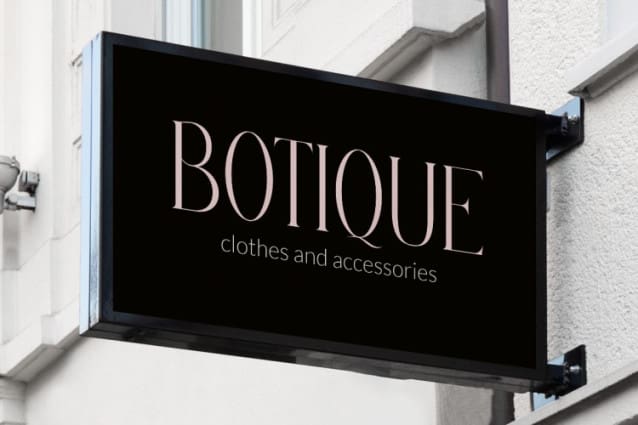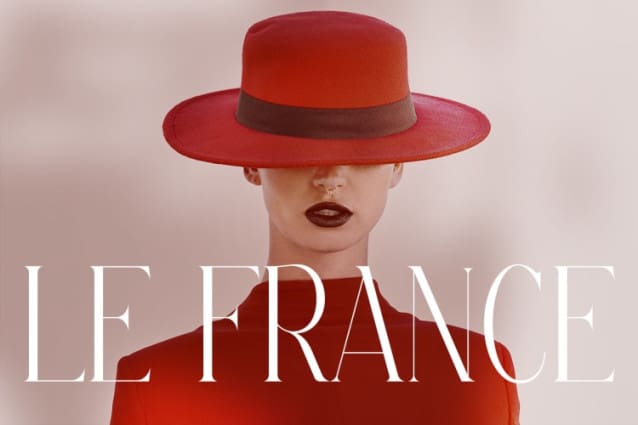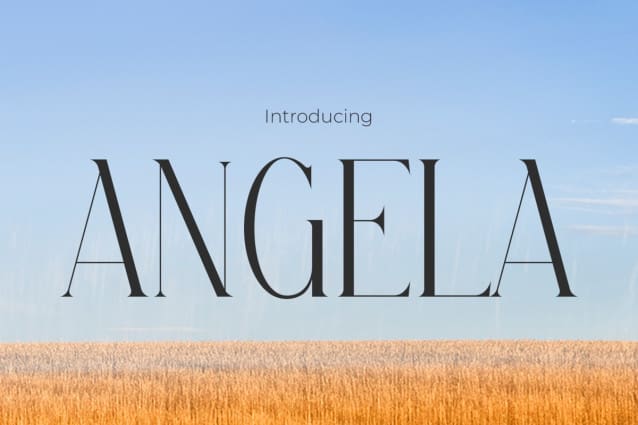
Angela Serif Typeface
Angela Serif Typeface, where elegance, fashionability, and femininity converge into a harmonious typographic masterpiece. This font embodies the essence of refined beauty and sophistication, making it the perfect choice for fashion-forward designs. With its graceful curves and stylish letterforms, ANGELA Font exudes a sense of timeless elegance that elevates any project it graces, whether it’s haute couture branding, editorial layouts, or chic invitations.
Angela Serif Typeface is a celebration of femininity and style, meticulously crafted to inspire confidence and allure. Its chic and fashionable appearance adds a touch of glamour to your designs, ensuring they stand out with grace and sophistication. Whether used for runway posters, fashion magazines, or elegant product packaging, ANGELA Font is the epitome of elegance in typography, infusing every design with a sense of refined femininity and contemporary flair.